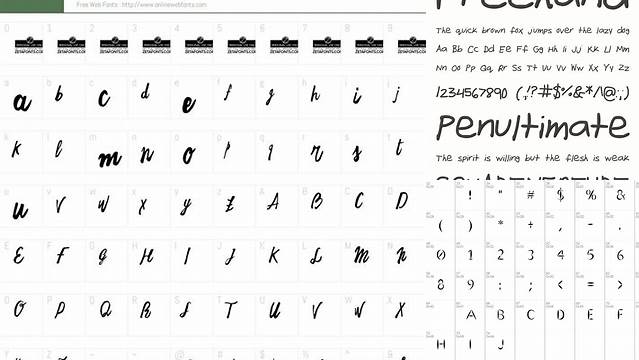
Freehand Regular Font: Quick & Free Download
Hey guys! Looking to add a personal touch to your designs? A freehand regular font can be just what you need. It brings a natural, handwritten feel that stands out from the usual digital perfection. Let's dive into everything you need to know about finding, using, and loving these awesome fonts!
What is Freehand Regular Font?
Freehand regular fonts are designed to mimic the look of natural handwriting. Unlike typical fonts that have a rigid, geometric structure, freehand fonts have a more fluid, organic appearance. This gives them a personal and approachable vibe, making them perfect for projects that need a human touch. Whether you're working on invitations, logos, or social media graphics, a freehand font can add a unique, handcrafted feel that sets your work apart. These fonts are created to look as if they were written by hand, with variations in stroke thickness and letterforms that replicate the natural inconsistencies of handwriting. This natural variation is what makes freehand fonts so appealing and effective at conveying authenticity and personality.
The best part about freehand fonts is their versatility. They can be used in a variety of contexts, from casual and playful designs to more sophisticated and elegant projects. A well-chosen freehand font can communicate warmth, creativity, and sincerity, enhancing the overall impact of your message. Plus, with so many free options available online, you can experiment with different styles without breaking the bank. Whether you need a font for a wedding invitation, a blog header, or a branding project, there's a freehand font out there that's perfect for your needs. So, go ahead and explore the world of freehand fonts and discover the unique character they can bring to your designs!
Why Use a Freehand Font?
Using a freehand font can instantly inject personality and warmth into your projects. These fonts mimic handwriting, offering a more personal and approachable feel compared to standard digital fonts. This is especially valuable when you want to create a connection with your audience, making them feel like they're receiving a message from a real person rather than a faceless corporation. A freehand font can help you convey authenticity, creativity, and sincerity, which can be particularly effective in marketing materials, invitations, and personal projects.
Furthermore, freehand fonts stand out from the crowd. In a world saturated with clean, geometric typefaces, a freehand font offers a refreshing alternative that grabs attention. They can add a unique, handcrafted touch to your designs, making them more memorable and engaging. This is particularly useful for branding, where you want to differentiate yourself from competitors and create a distinct visual identity. The imperfect, organic nature of freehand fonts can make your brand appear more relatable and human, fostering a stronger connection with your target audience. Plus, using a freehand font can also communicate a sense of playfulness and creativity, which can be beneficial for brands that want to be seen as innovative and approachable.
Freehand fonts will likely be increasingly integrated with digital tools and platforms, allowing designers to easily incorporate them into web designs, social media graphics, and other digital projects. We may also see more interactive freehand fonts that respond to user input, creating dynamic and engaging experiences. The trend towards sustainability and ethical design may also influence the future of freehand fonts. We can expect to see more fonts that are created by independent designers and small foundries, supporting local communities and promoting diversity in the design industry. Overall, the future of freehand fonts is bright, with exciting new possibilities for creativity and innovation. As technology continues to evolve, we can expect to see freehand fonts become even more personal, versatile, and impactful in the world of design.